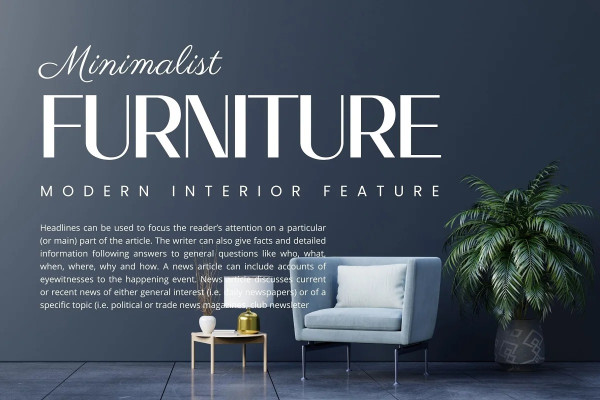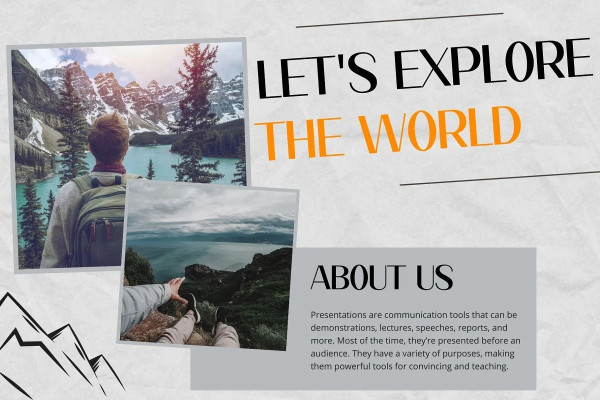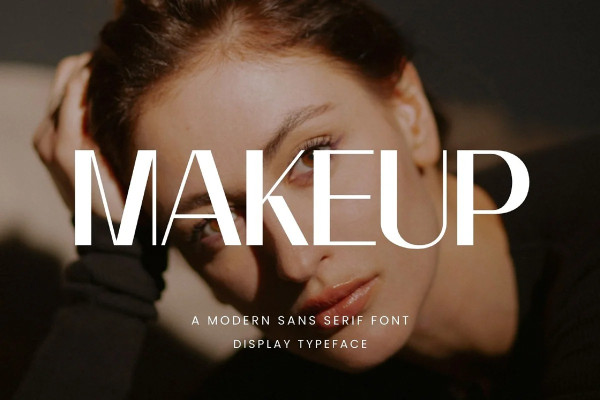
Makeup Font
Makeup Font – Elegant Serif Font inspired by the famous minimalist logo perfect for the purposes of designing templates, brochures, videos, advertising branding, logos, invitation, layout design, elegant crafting, beauty design and other